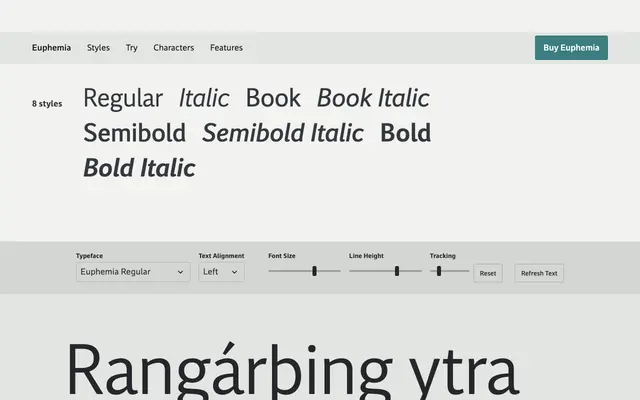
Euphemia
Tiro Typeworks · Ross Mills
A humanist serif by Ross Mills supporting both pan-European Latin and Canadian Syllabics scripts for Cree, Inuktitut, Ojibwe and related languages.
Designed by Ross Mills with remastering by John Hudson and Paul Hanslow, Euphemia runs across eight styles from Regular to Bold Italic, with variable font builds also available. It ships in three purchasable subsets: a full Latin plus Syllabics version, a Latin-only subset covering major European and certain Indigenous Latin orthographies, and a Syllabics-only subset offered on a pay-what-you-want basis. OpenType features include localised forms for Carrier, Nunavik and Beaver Syllabics dialects, small caps, old-style figures and arbitrary fractions.
Euphemia is a humanist serif designed to harmonise Latin and Canadian Syllabics scripts in a single typeface, with open, readable letterforms suited to multilingual text setting.